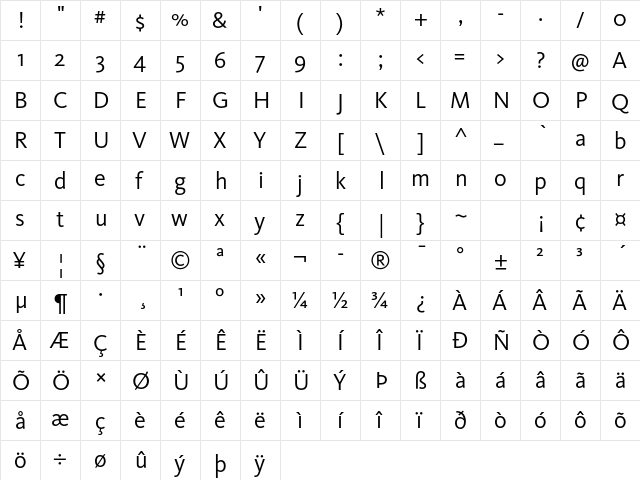
KievitOT-Regular Font Preview
KievitOT-Regular Regular
KievitOT-Regular Font Details
| Foundry | FSI Fonts und Software GmbH |
| Designer | Mike Abbink |
Design Context for KievitOT-Regular Typeface
KievitOT-Regular offers clean, dependable letterforms without strong stylistic allegiance, making it a practical choice for designers who need flexibility.
Pro Tip: Use KievitOT-Regular in both headline and body roles to test its range before committing to a single application.